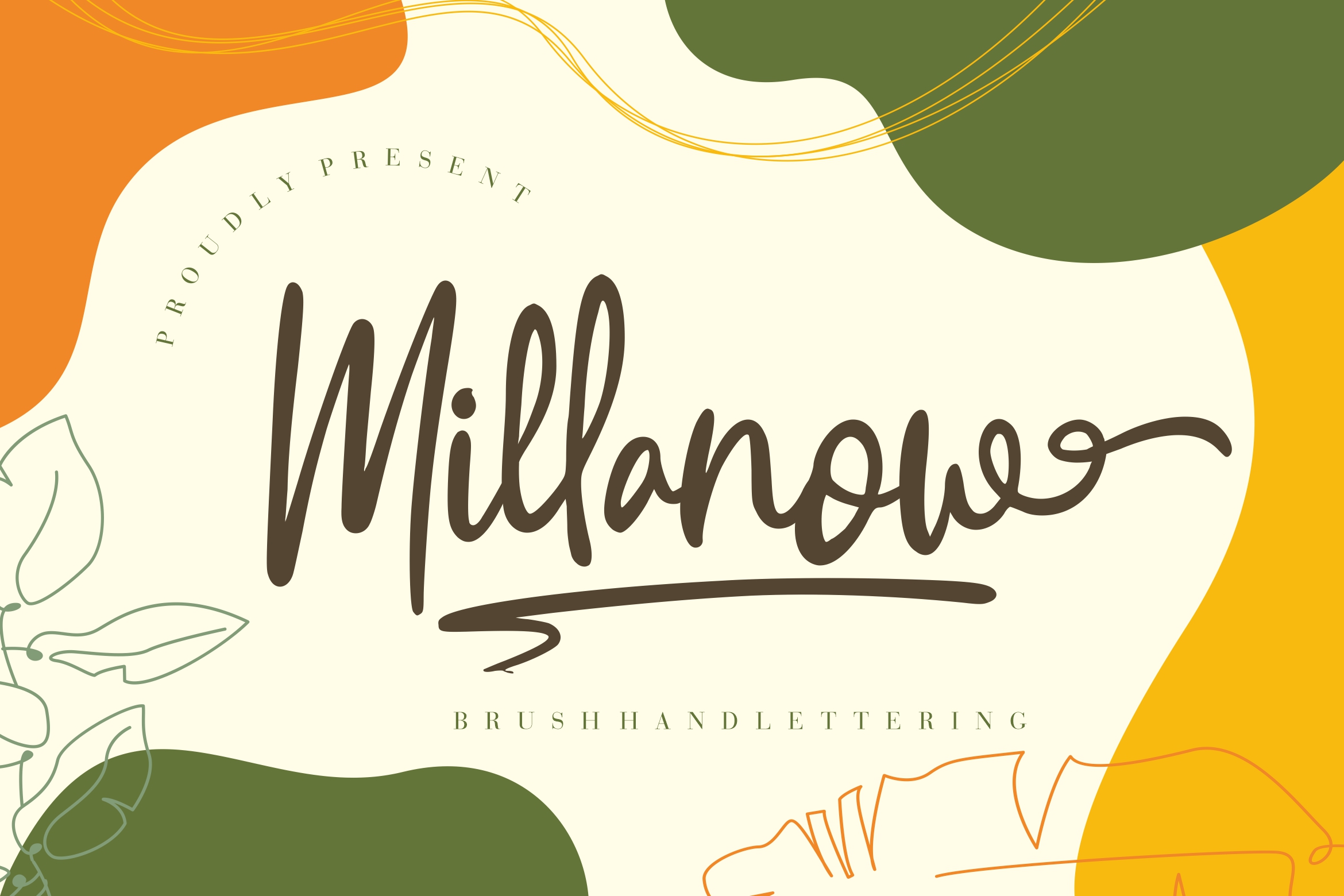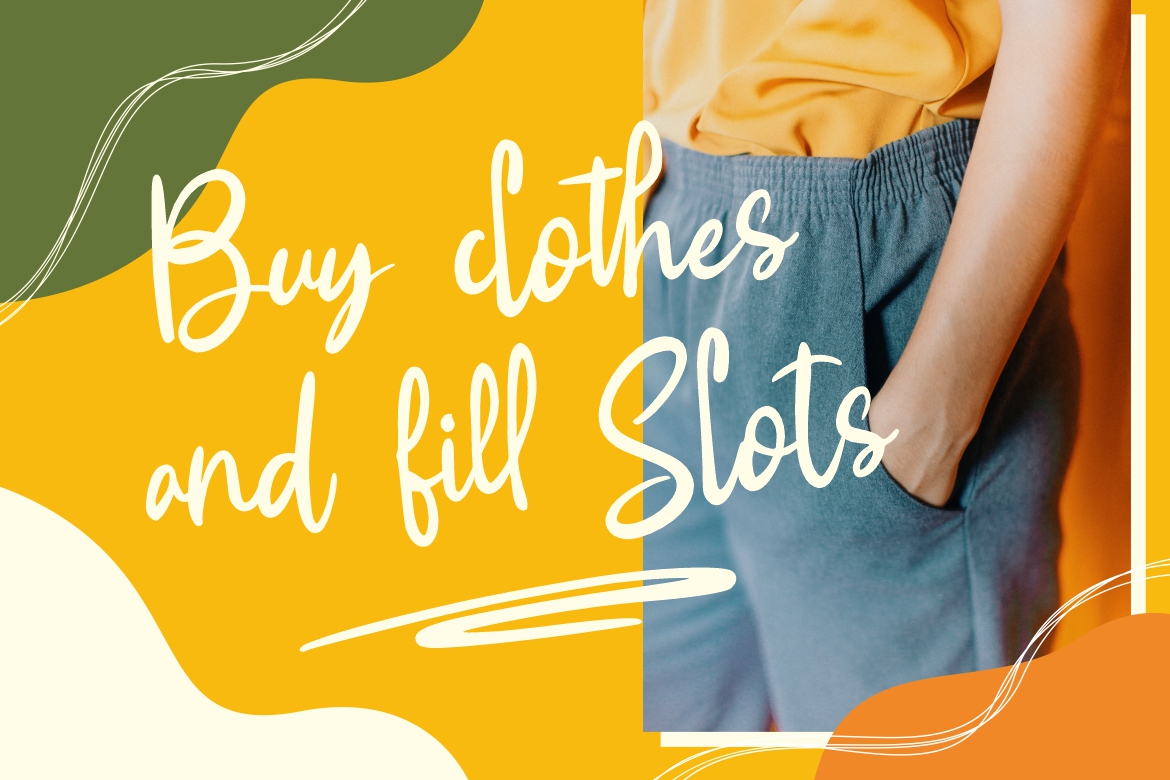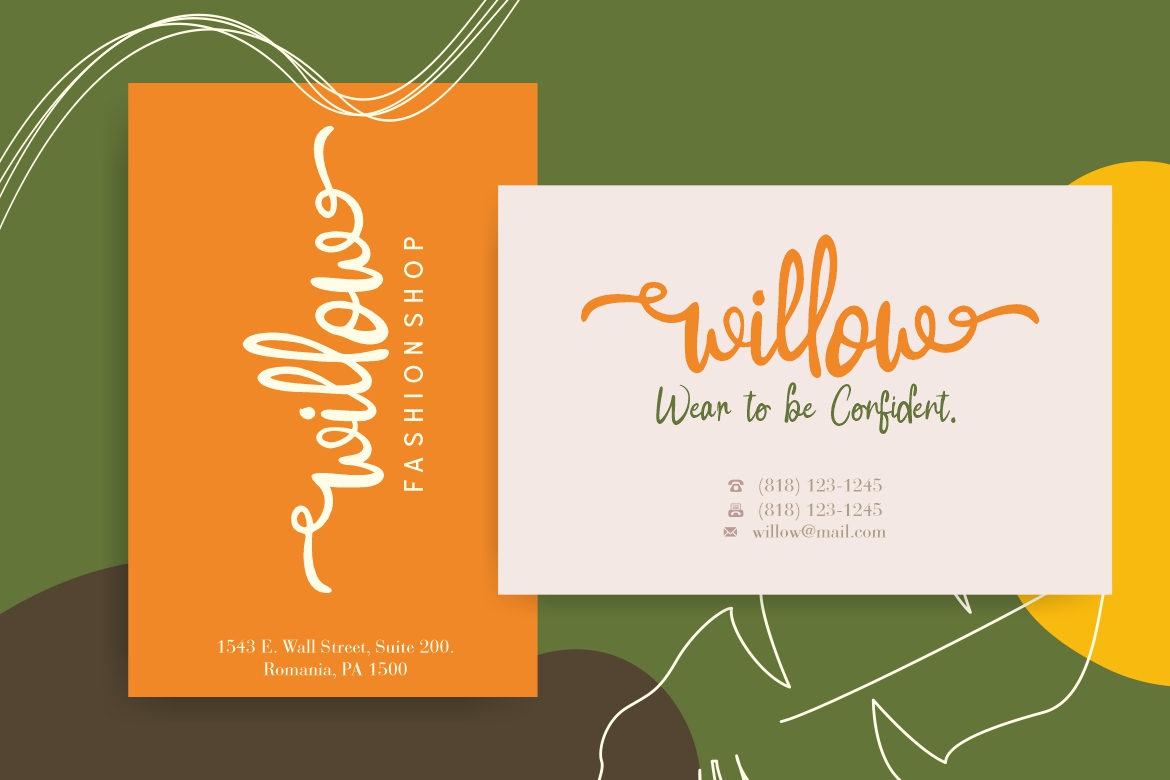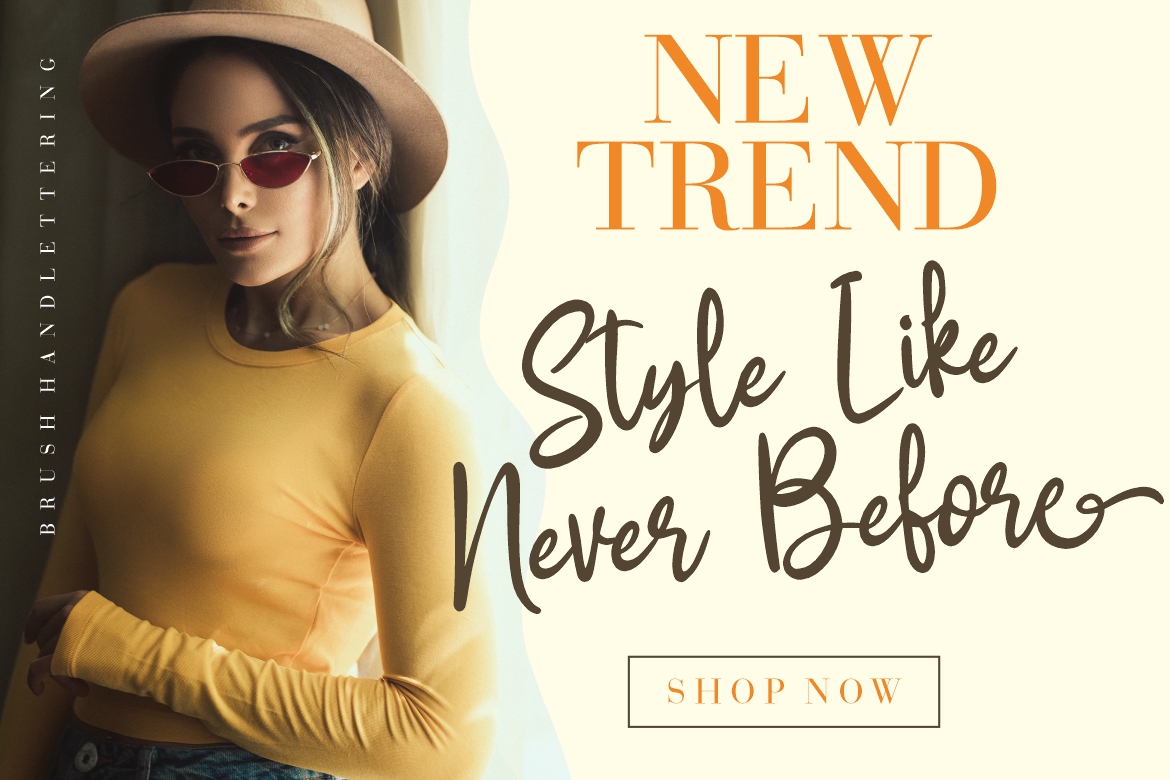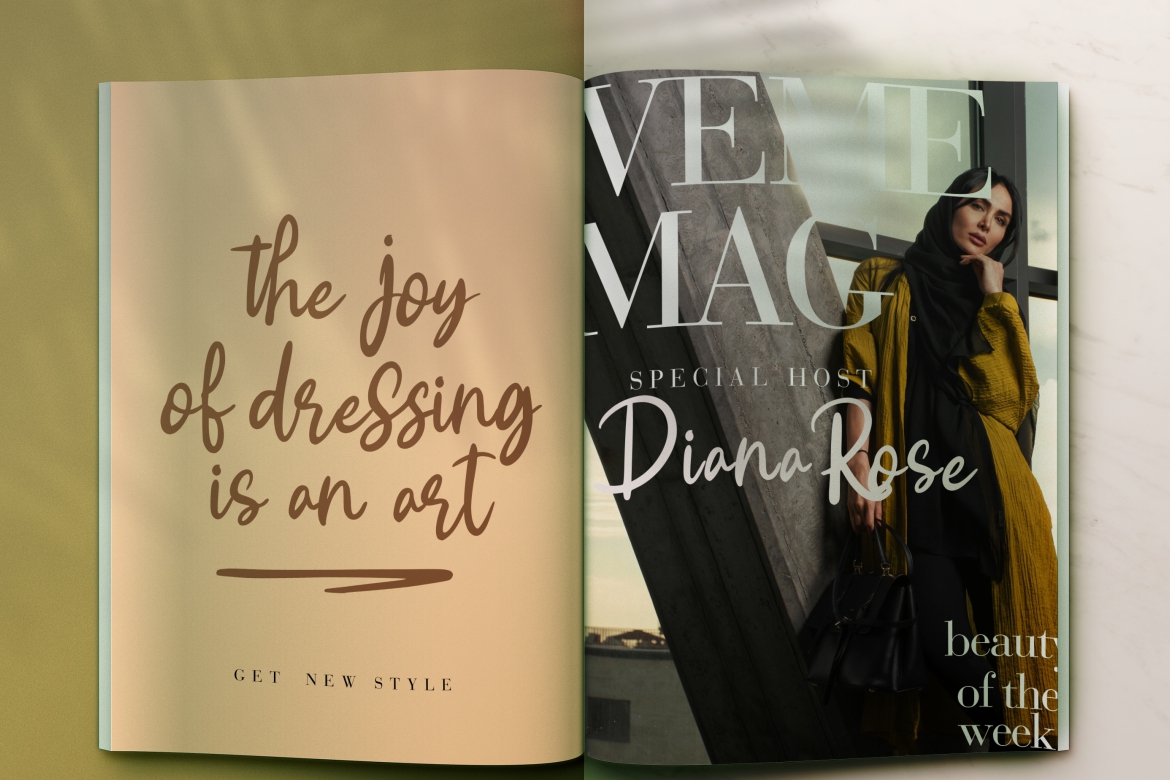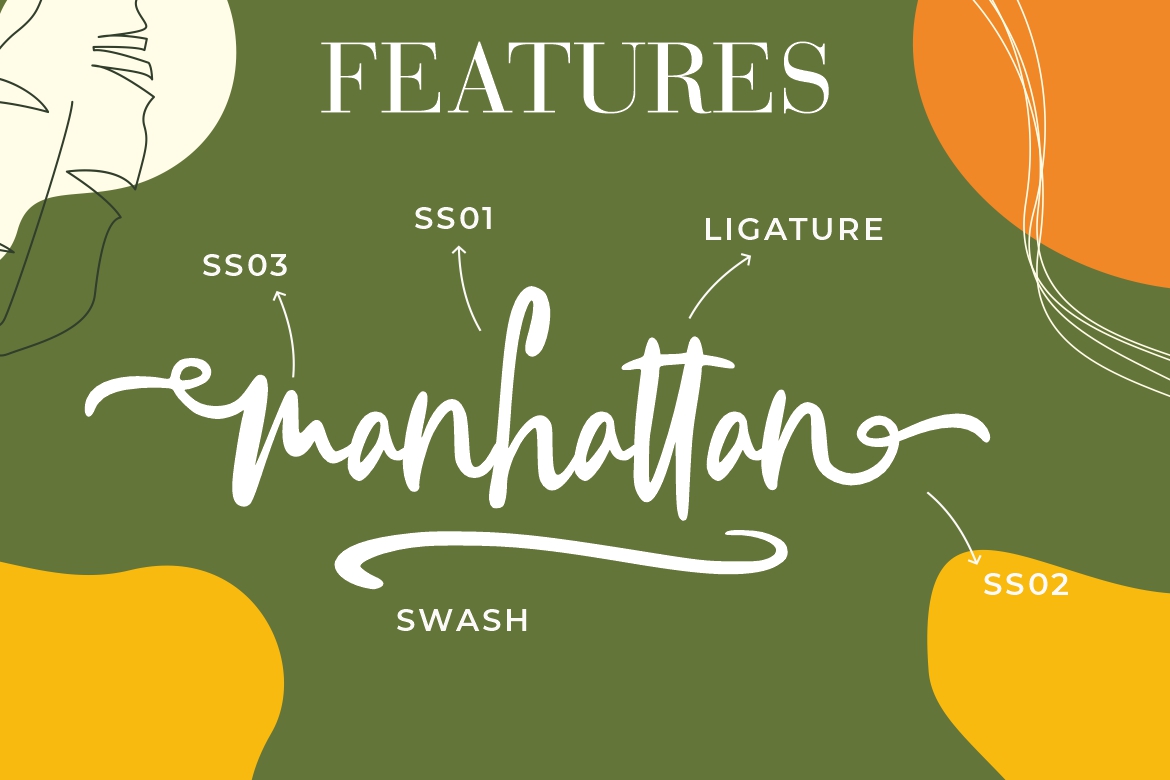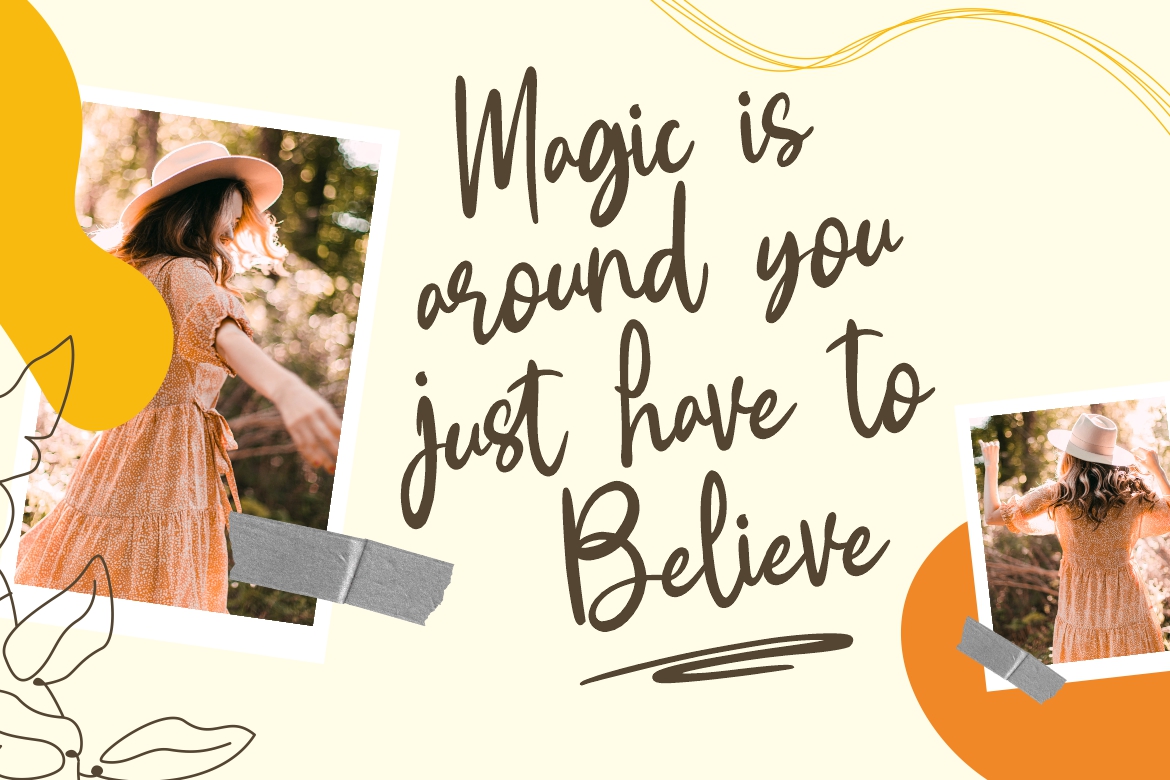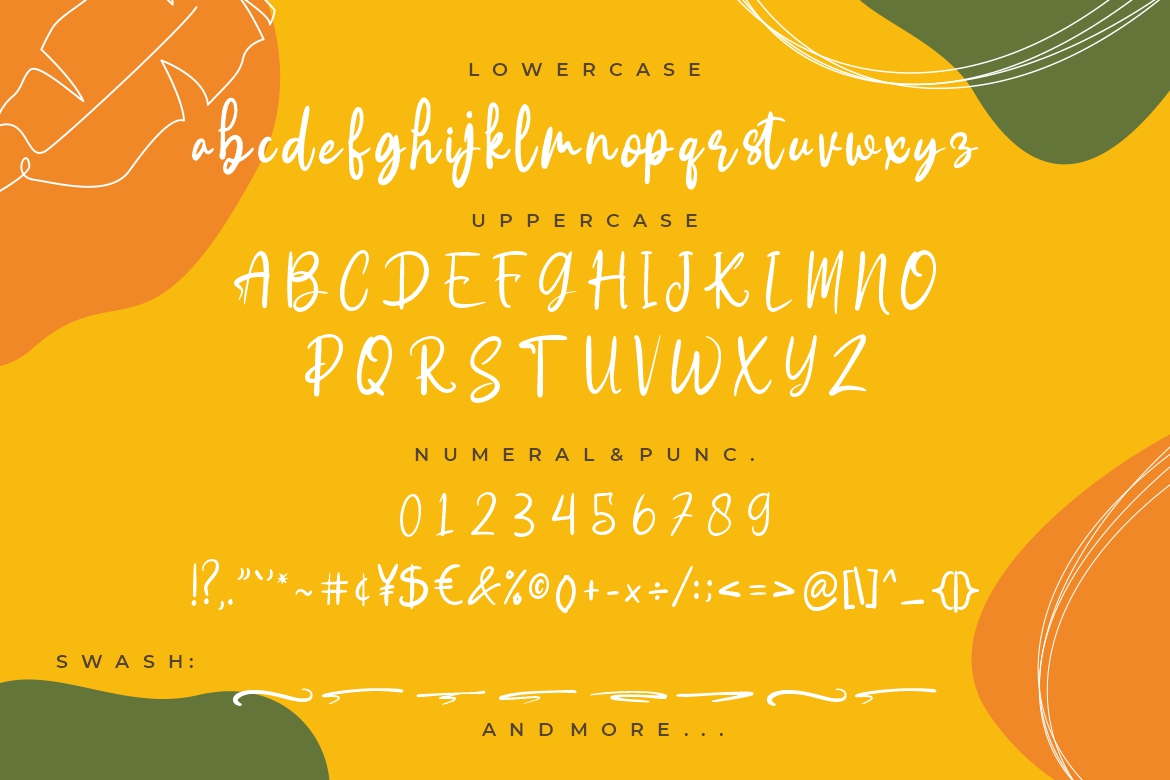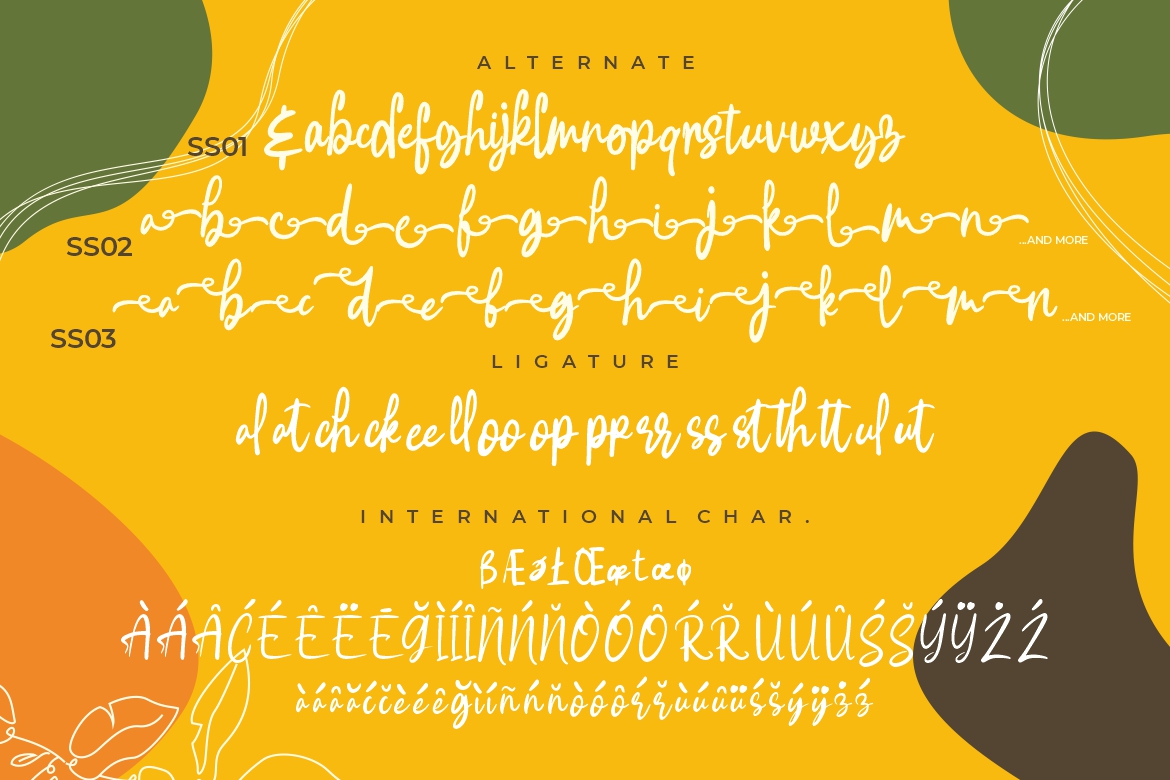
Millanow Brush Business Font
Introducing Millanow Brush Handlettering – A brush hand lettering with modern style that looks feminine. This font will looks awesome and amazing in many way to your latest project. The font is perfect for for movie title, logo, blogging, brand identity, book title, social media, branding, wedding invites, cards or simply use it in your next design project and suitable to use for many occasion.
• Ton of glyphs
• Ligature & Alternate
• Fonts include multilingual support for; Afrikaans, Albanian, Czech, Danish, Dutch, English, Estonian, Finnish, French, German, Hungarian, Italian, Latvian, Lithuanian, Norwegian, Polish, Portuguese, Slovak, Slovenian, Spanish, Swedish.